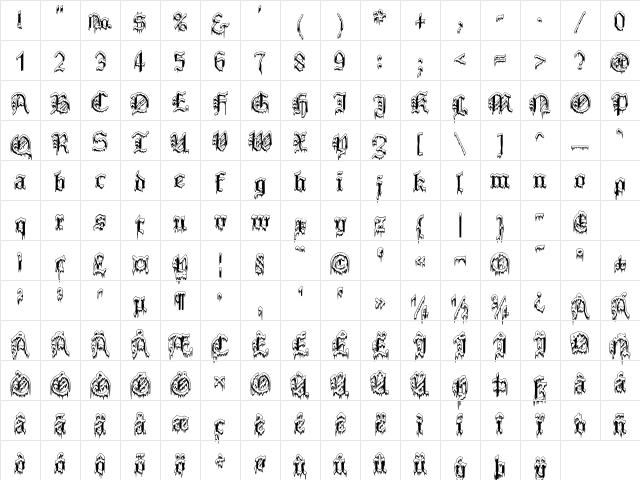
PlymouthRock 'SnowDusted' Regular
Design Context for PlymouthRock 'SnowDusted'
PlymouthRock 'SnowDusted' is a composed and adaptable typeface that performs quietly and consistently across a wide range of design contexts.